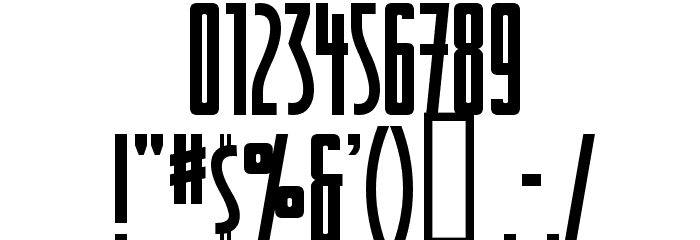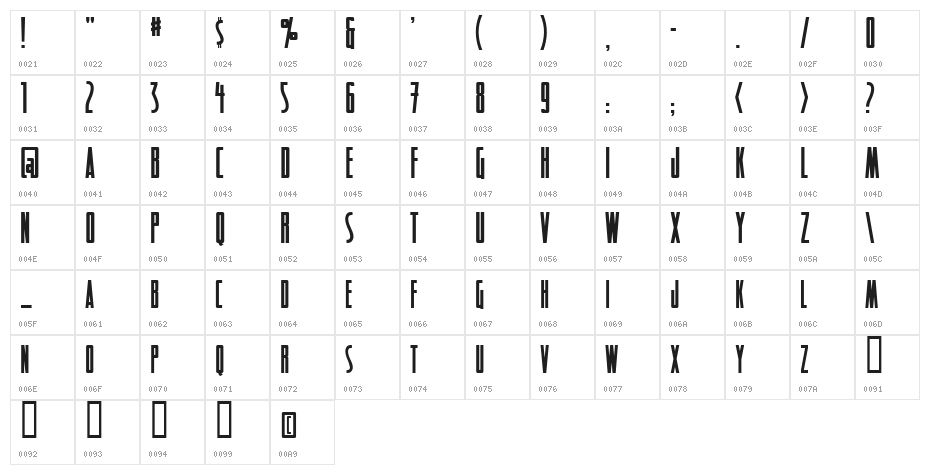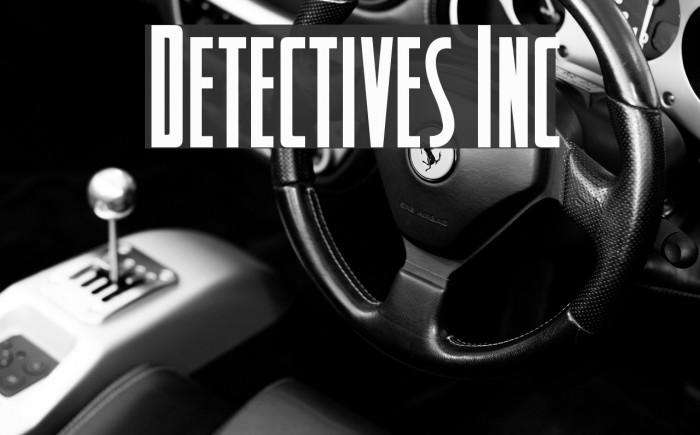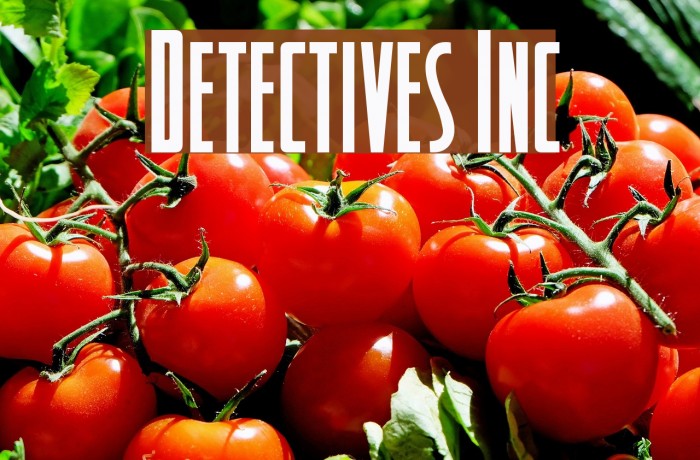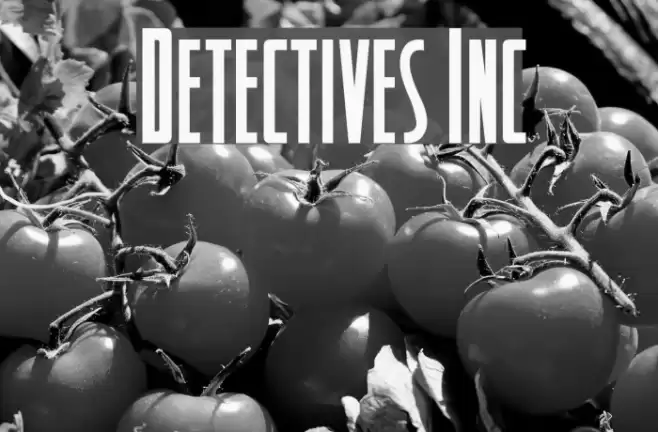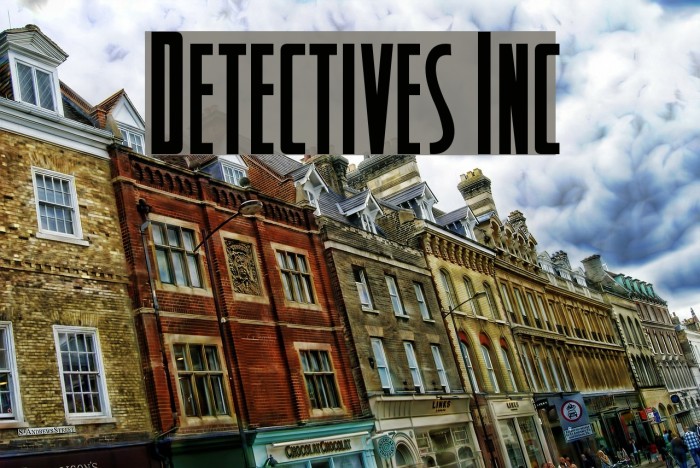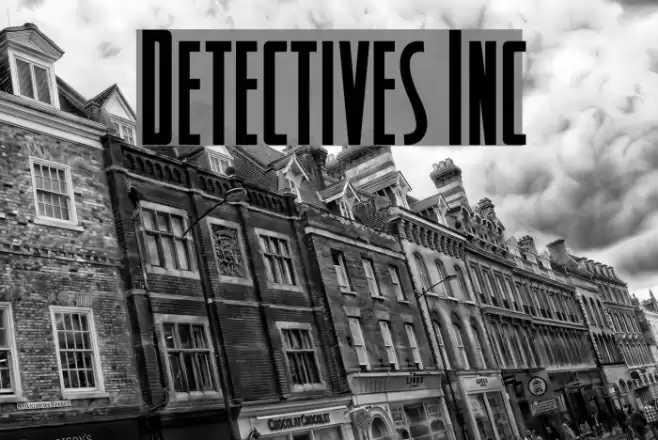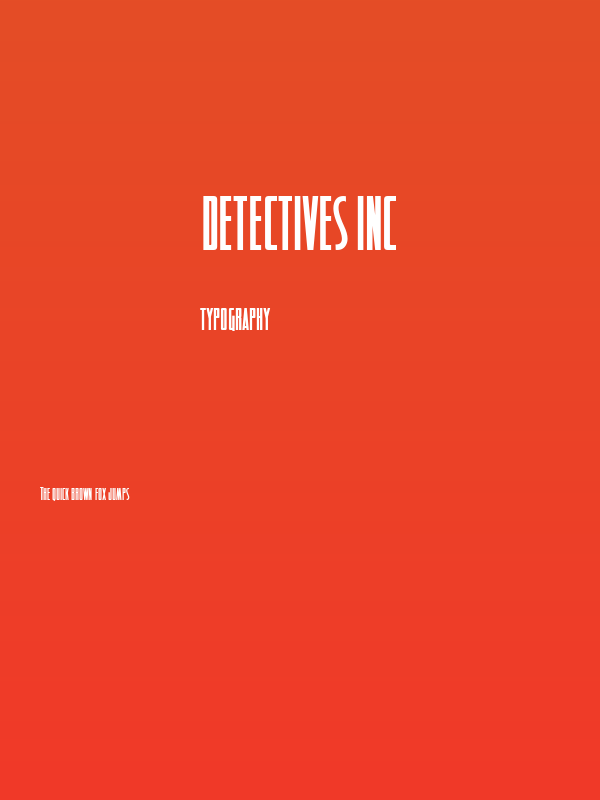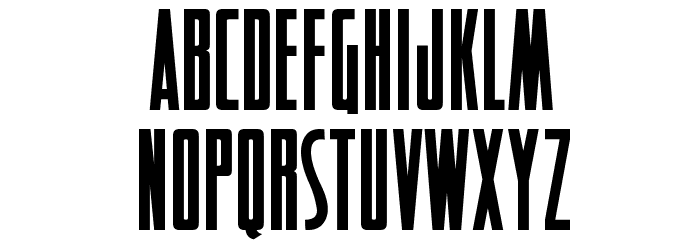
Detectives Inc Font
Detectives Inc Description
This font features a bold and striking design with tall, narrow characters that create a strong visual impact. The uppercase letters are particularly elongated, giving the font a dramatic and commanding presence. The characters are tightly spaced, enhancing the compact and cohesive look. The font's high contrast in stroke thickness adds to its boldness, making it ideal for attention-grabbing headlines and titles. The numerals and special characters maintain the same bold style, ensuring consistency across all text elements.
| Proposed Projects | Ideal for use in posters, branding, and editorial design where a strong, attention-grabbing typeface is needed. |